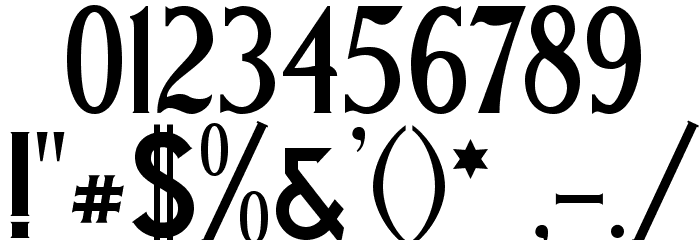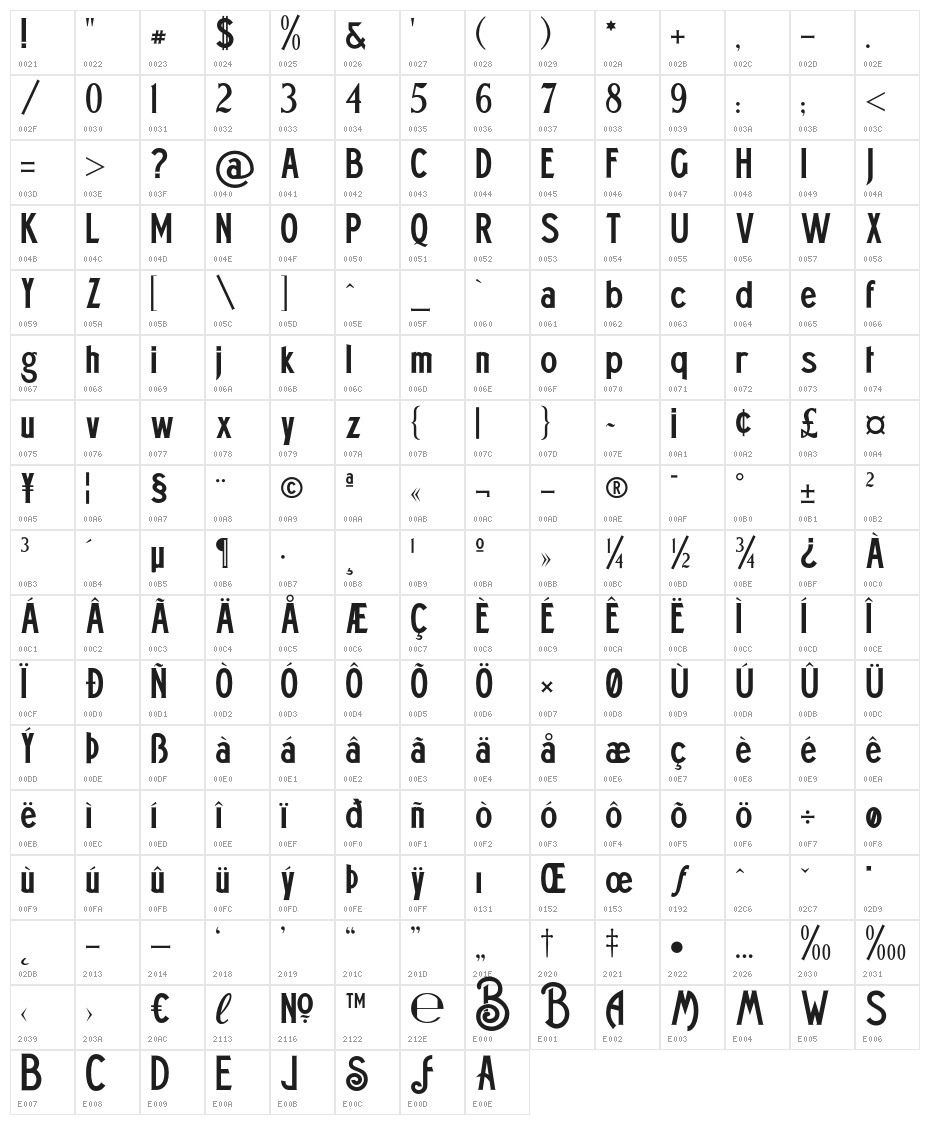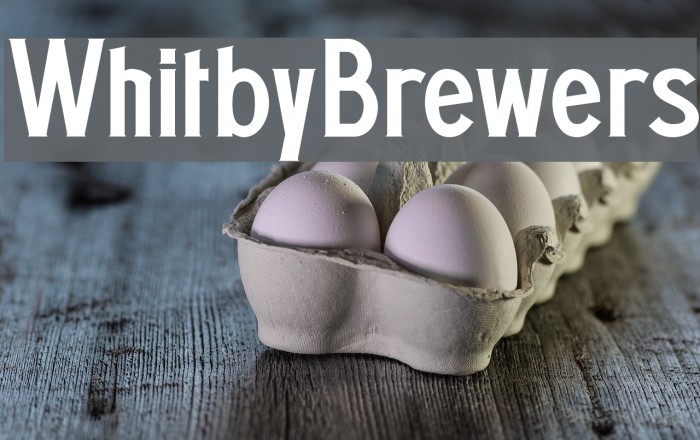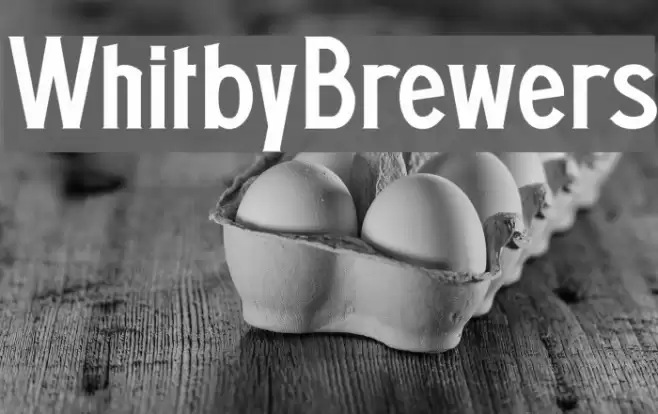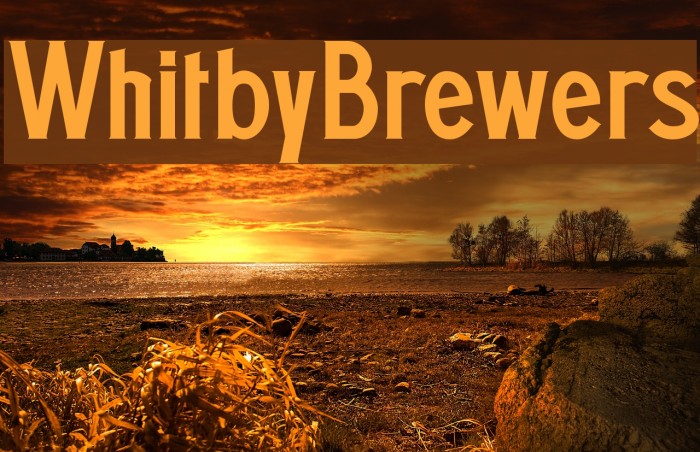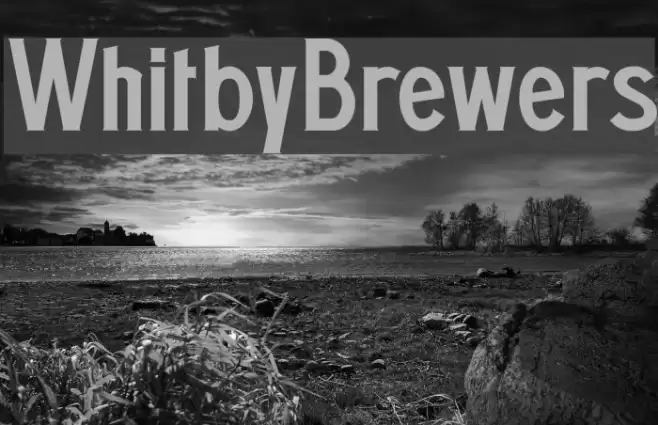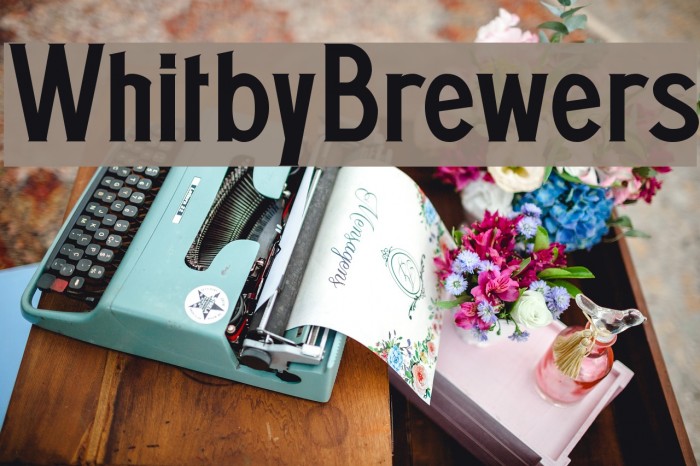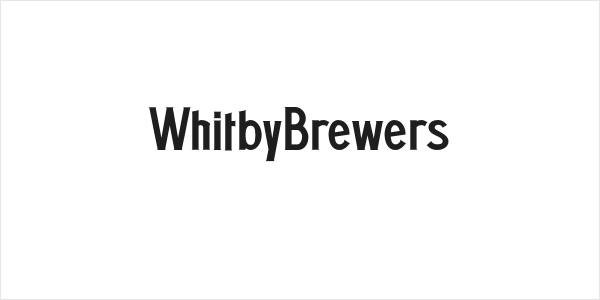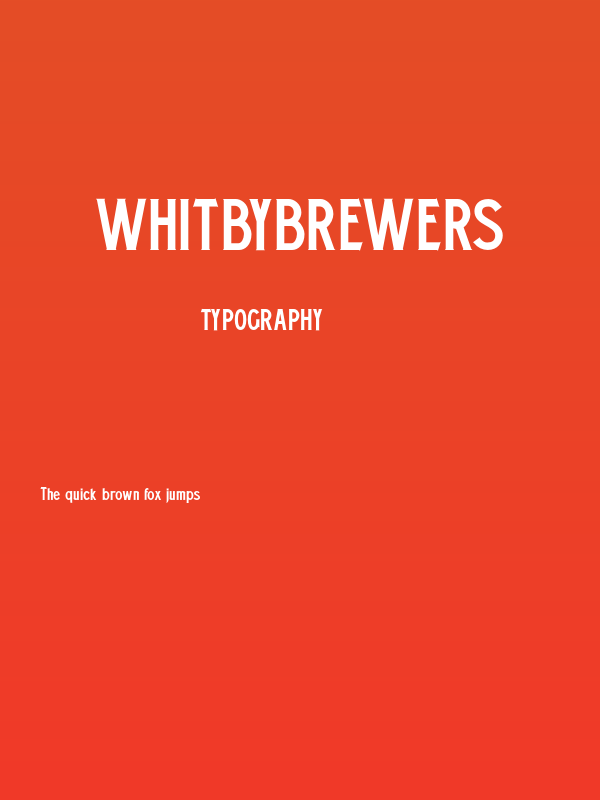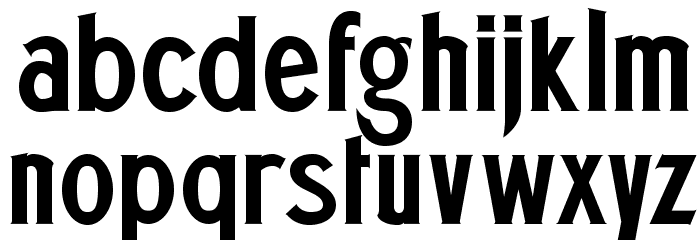
WhitbyBrewers Font
WhitbyBrewers Description
This font features a bold and striking design with a strong presence. The uppercase letters are tall and narrow, giving a sense of elegance and authority. The lowercase letters maintain a consistent style, with some unique characteristics such as the curved tail on the 'g' and the distinctive shape of the 't'. The numerals are clear and easy to read, with a uniform thickness that matches the letters. Special characters are designed to complement the overall aesthetic, providing a cohesive look. This font is well-suited for projects that require a bold statement, such as branding or advertising.
| Proposed Projects | Ideal for branding, advertising, poster design, and any project requiring a strong visual impact. |